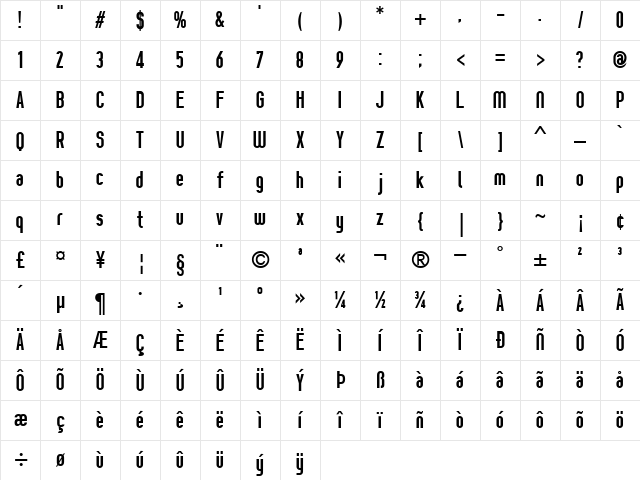
[z] Prozak Bold Free Font
[z] Prozak Bold
Foundry: studio Kmzero
Designer: Francesco 'Mistico' Canovaro
Design Context for [z] Prozak
[z] Prozak is a composed and adaptable typeface that performs quietly and consistently across a wide range of design contexts. Its bold stroke weight gives it real presence on the page.
Who designed the [z] Prozak Bold font?